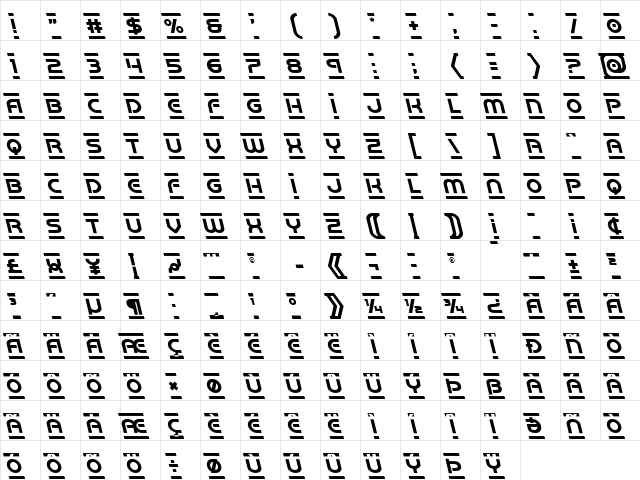
Barcade Leftalic Italic
Design Context for Barcade Leftalic Typeface
Barcade Leftalic takes a measured approach to typography — its balanced proportions and neutral character make it a reliable workhorse for both digital and print work. Its italic angle brings a sense of urgency and motion to the letterforms.
Pro Tip: Try Barcade Leftalic for annotation and caption copy alongside an upright companion — the contrast in angle creates a dynamic but ordered typographic system.